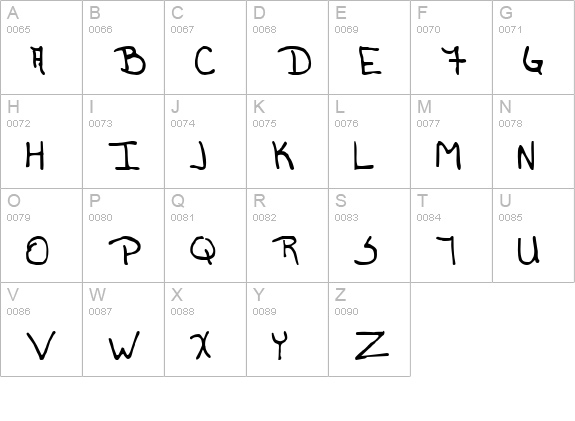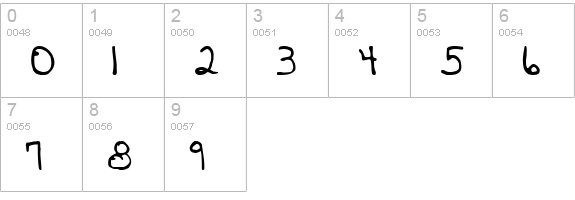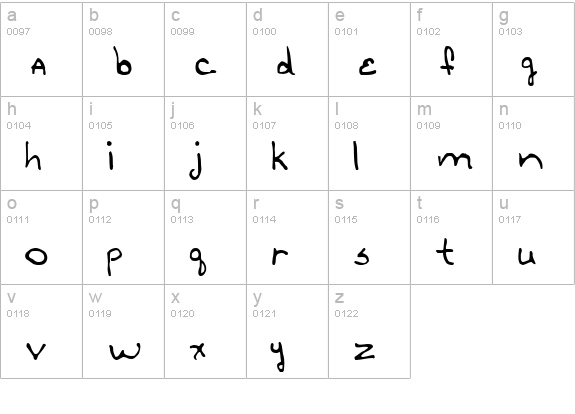
Annie Font Details
Annie font is a whimsical and charming typeface that adds a touch of playfulness to any design. Its elegant yet friendly appearance makes it perfect for a variety of projects, from invitations to branding materials. With its unique style and graceful curves, Annie font is sure to catch the eye and leave a lasting impression. The best part? Annie font is available for free download at FontsMarket.com. This means you can easily access this delightful font and use it in your projects without any cost. So why wait? Add a touch of creativity and fun to your designs with Annie font today!